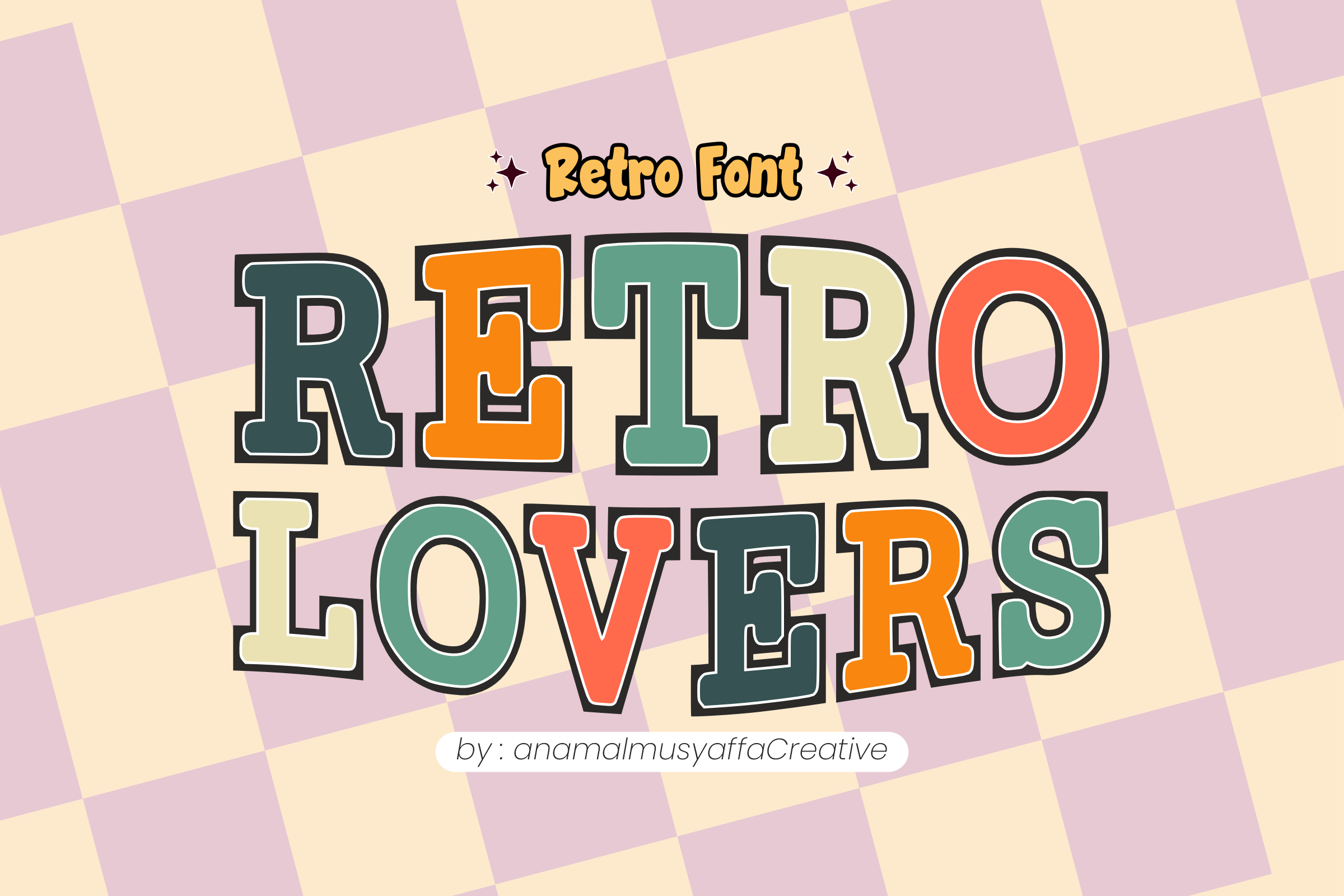
Retro Lovers - Retro Display Font
🏎️ Retro Lovers - Groovy Slab Serif Outline Font 🏁 Rev up your designs with Retro Lovers! This bold Slab Serif Outline font captures the essence of vintage racing, retro athletics, and 70s groovy aesthetics. With its strong geometric structure and clean outline style, it’s the perfect choice for creators looking to add a nostalgic yet powerful statement to their work.
Whether you're designing a classic baseball jersey, a retro poster, or modern streetwear branding, Retro Lovers delivers a timeless look that is both stylish and high-impact!
✨ Features: All Caps Character Set (Strong & Commanding) 🔠
Numbers & Essential Symbols 🔢
Slab Serif Outline Style (Clean & Professional) 🖋️
Retro & Sporty Aesthetic ⚾
🚀 Perfect For: Vintage Sports Branding & Team Logos 🏆
Streetwear & Apparel Design 👕
Retro Event Posters & Flyers 🎟️
Social Media Quote Graphics 📱
Packaging & Labels with a Groovy Twist 📦
YouTube Banners & Headings 📺